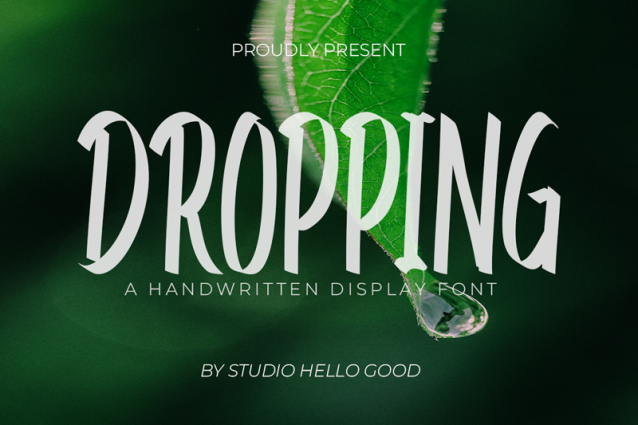
Dropping Script Font
Dropping Script Font is a simple and friendly handwritten font. Its natural and unique style makes it incredibly fitting to a large pool of designs. The only limit is your imagination!